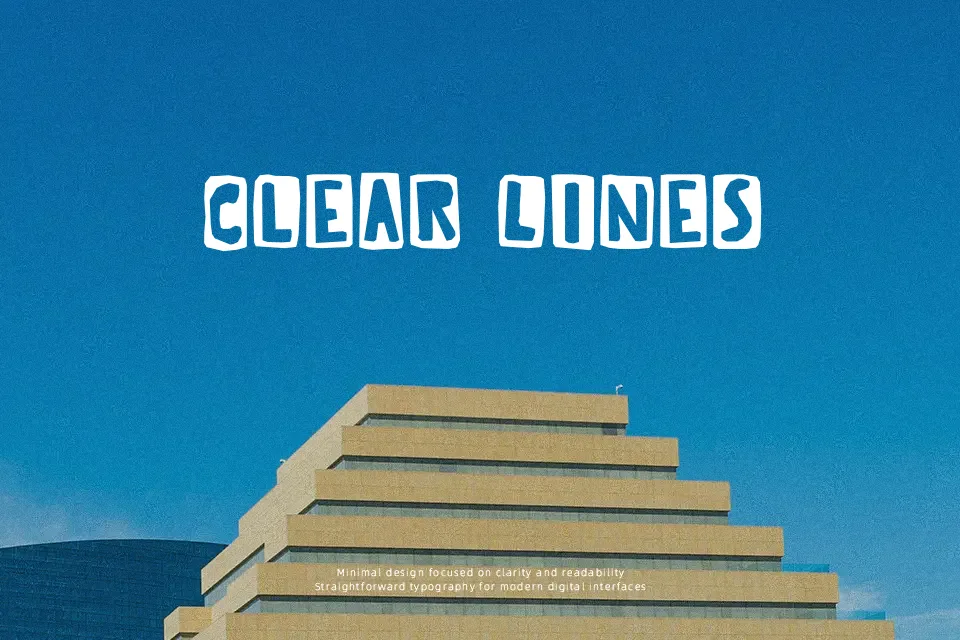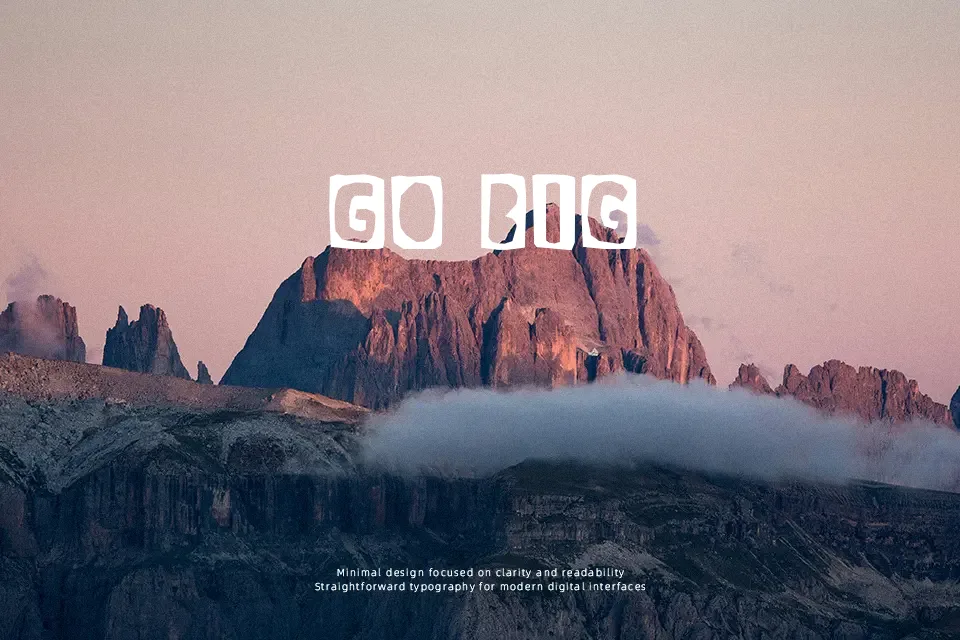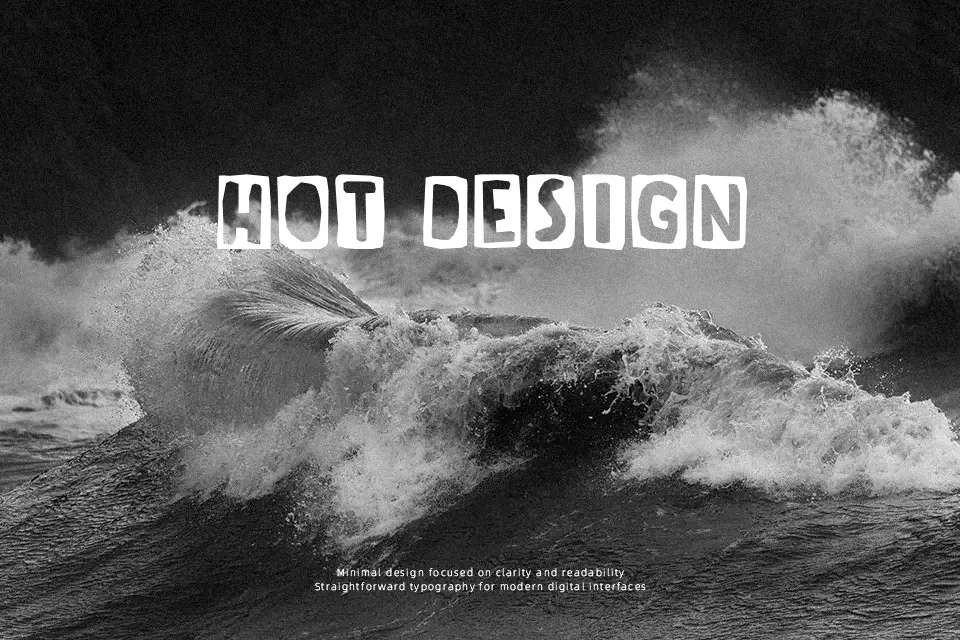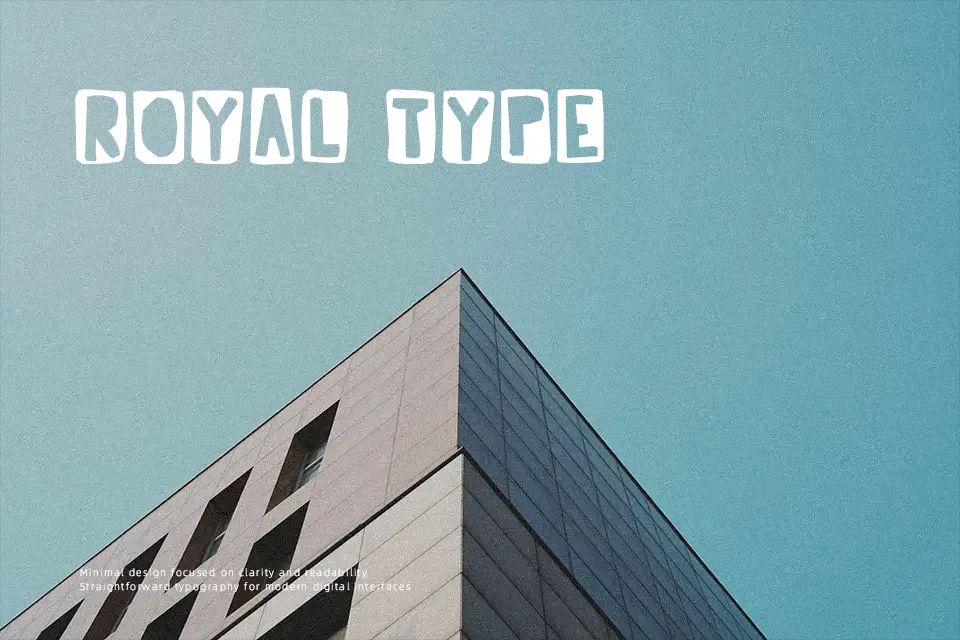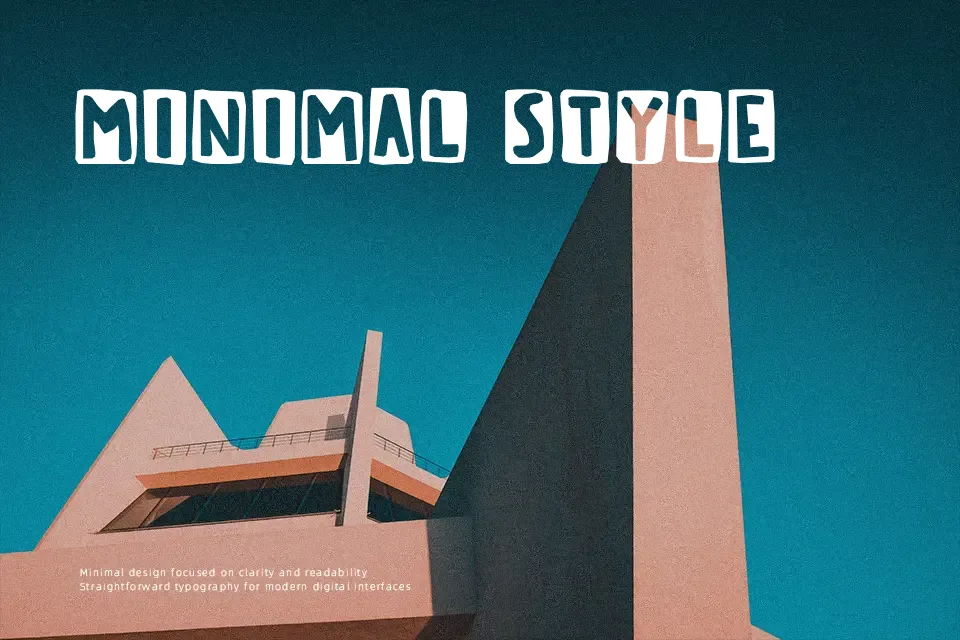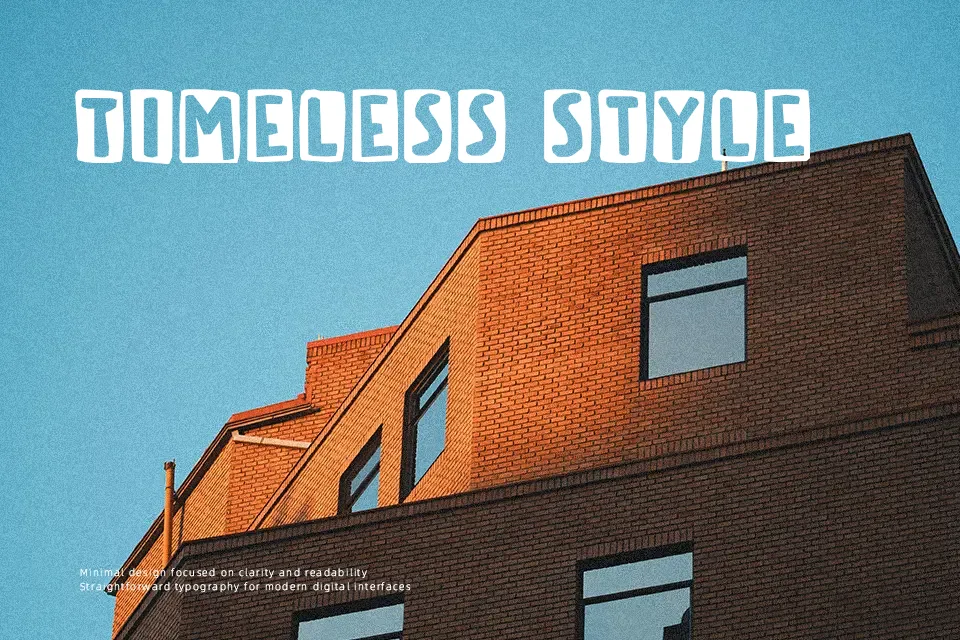
Tough Cookie Font
Designed by Hanoded
Tough Cookie Font presents a bold paper-cut aesthetic marked by angular contours and asymmetric stroke widths. Each glyph exhibits substantial weight with minimal interior counter spaces, creating an energetic tactile presence. The typeface uses slightly tight character spacing alongside irregular baseline alignments that enhance its informal craft charm. Proportions remain somewhat compact, which helps individual characters fit snugly together on crowded product labels or animated title cards. Readability stays dependable when the letterforms appear in prominent headings or thematic banners, but the dense silhouettes rapidly lose distinction in continuous body passages. Because fine gaps close up at smaller point sizes, the design remains unsuitable for multi-line paragraphs and detailed editorial text.
Best For: children book covers, food packaging labels, poster headlines, thematic event banners
Not Ideal For: long paragraph text, small interface labels, dense editorial layouts, corporate documents